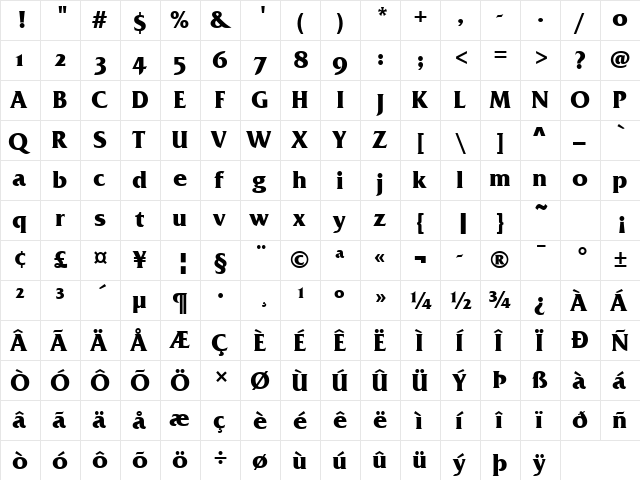
Friz Quadrata OS TT Bold
Design Context for Friz Quadrata OS TT Typeface
Friz Quadrata OS TT offers clean, dependable letterforms without strong stylistic allegiance, making it a practical choice for designers who need flexibility. The heavy weight commands attention and anchors typographic hierarchies.